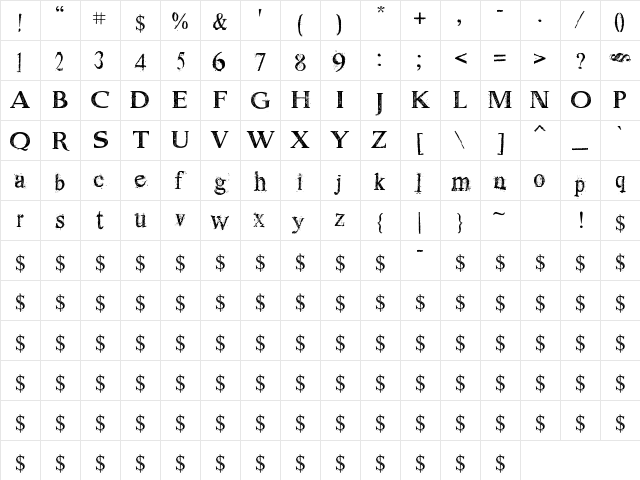
Dust Serif Regular
Foundry: Galdino Otten
Designer: Galdino Otten
Design Context for Dust Serif
Dust Serif carries the refined structure of traditional serif typography, with bracketed terminals and considered proportions that communicate credibility and craft.